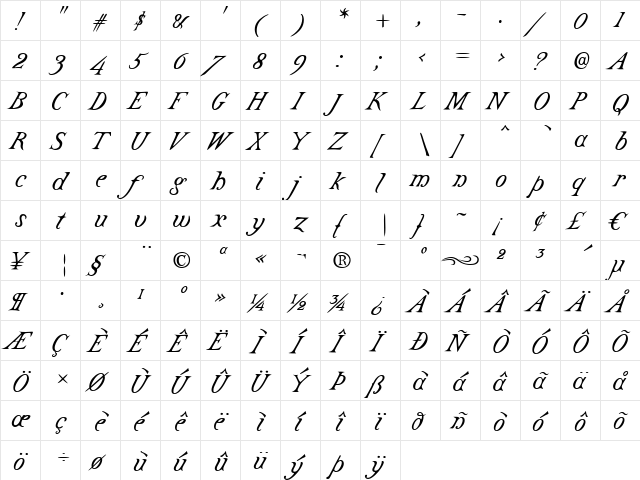
CastineBETA Regular
Design Context for CastineBETA Typeface
CastineBETA offers clean, dependable letterforms without strong stylistic allegiance, making it a practical choice for designers who need flexibility.